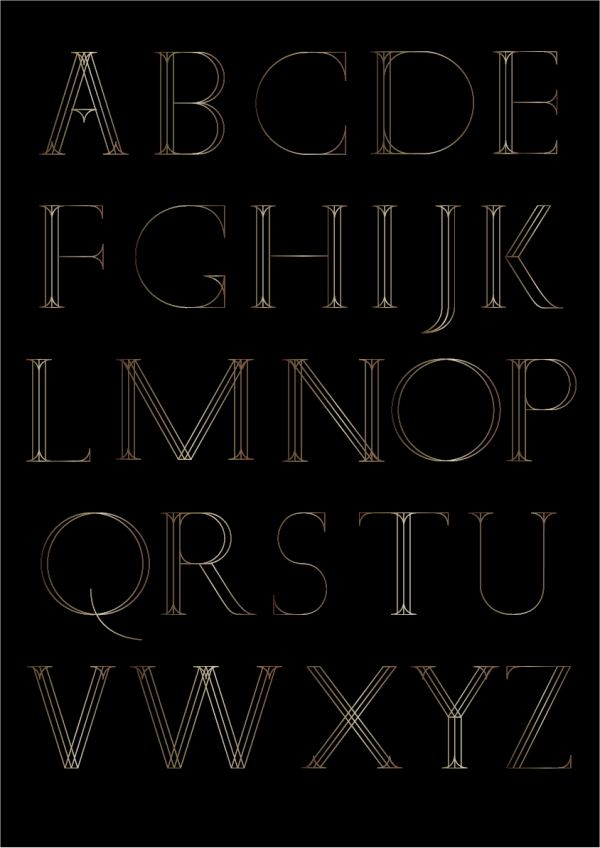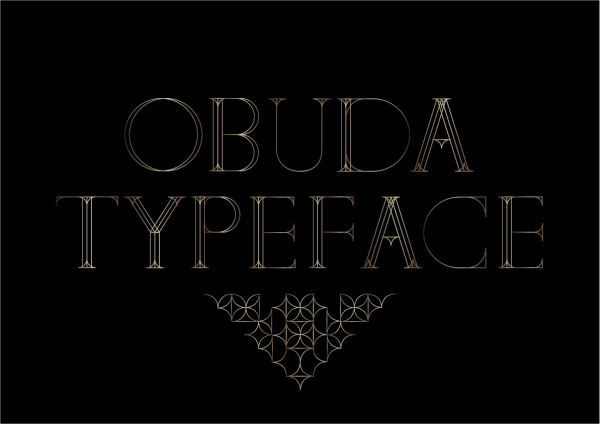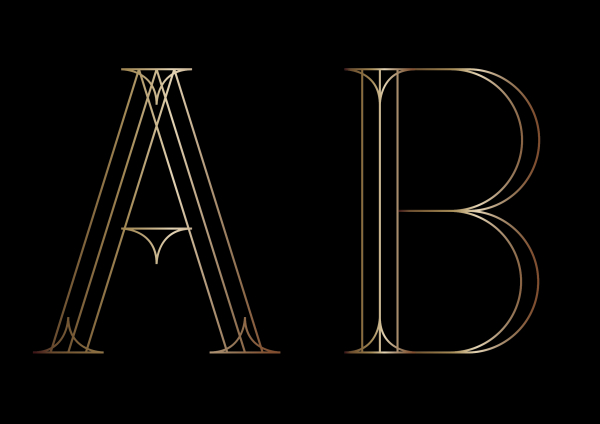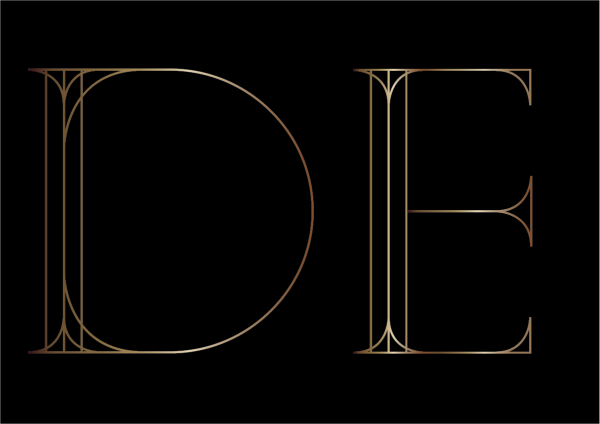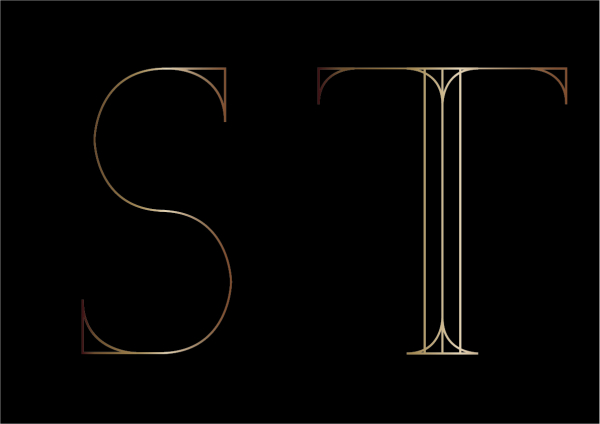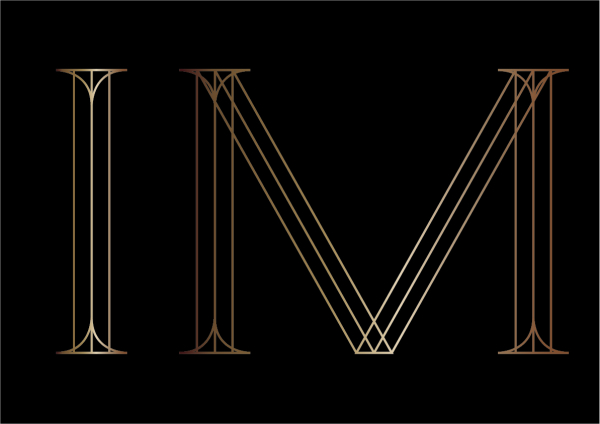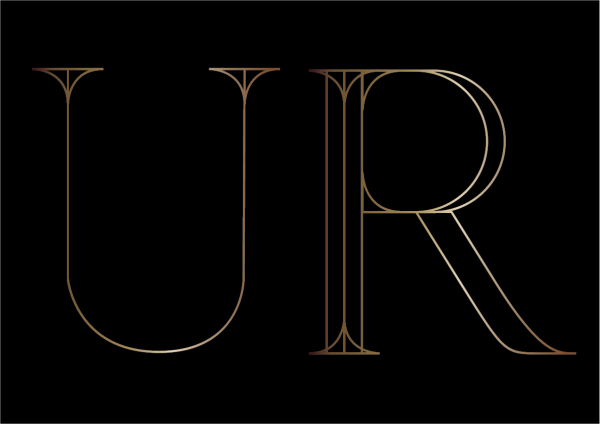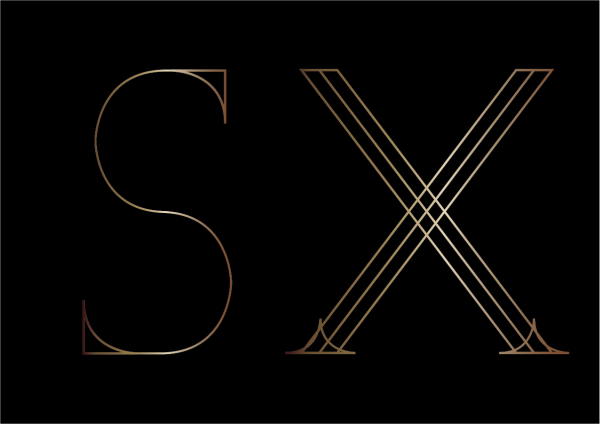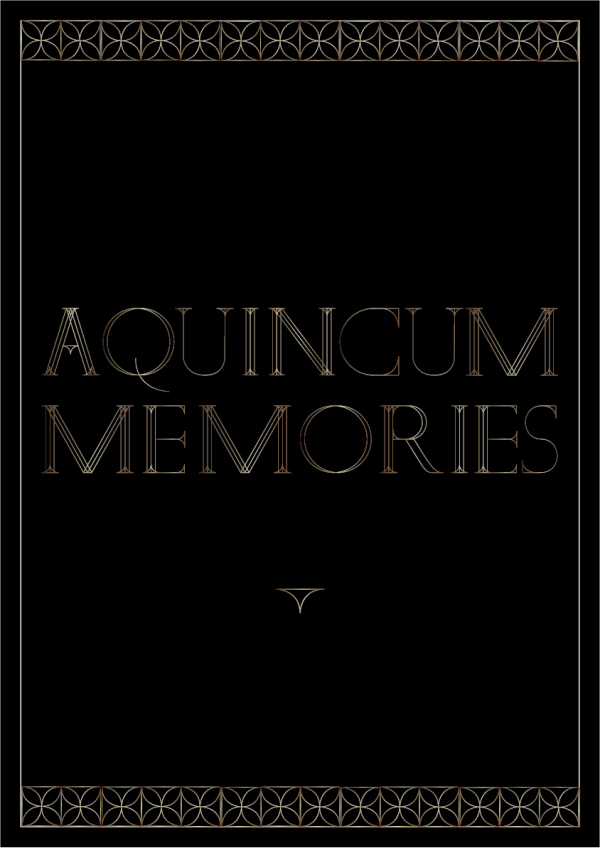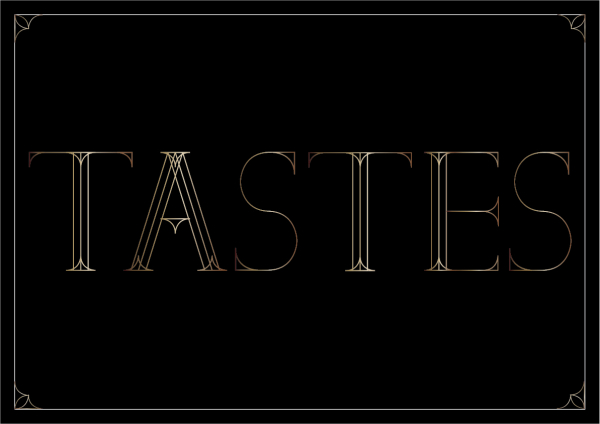
OBUDA
OBUDA is an archaic and ecletic font, with fine golden lines, inspired by the history of Óbuda.
Óbuda is a special place with a special atmosphere, where past meets present and historical buildings colour the texture of high-rise apartment blocks. Anyway the scene of my childhood. :)
Designer: Zsuzsanna Erdélyi